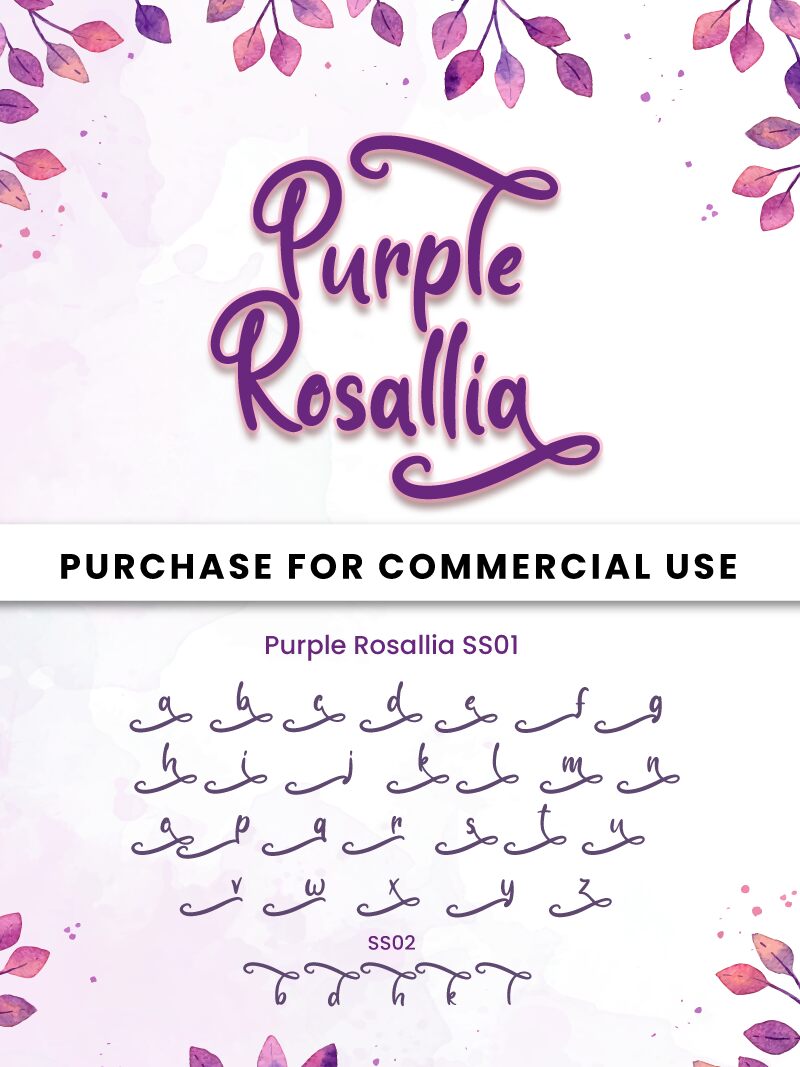
Purple Rosallia - Personal Use
Purple Rosallia font is a handwritten, slightly calligraphic typeface designed by Fadli Ramadhan Iskandar of Attype Studio.